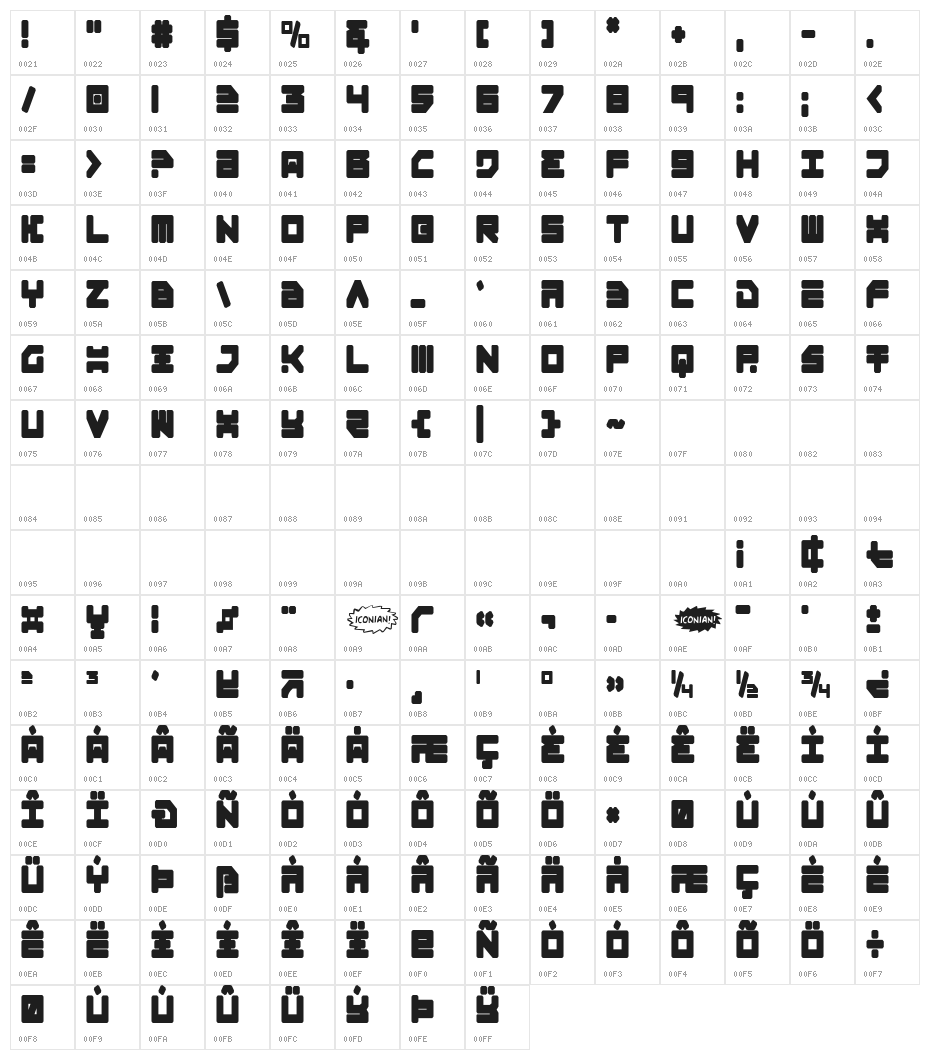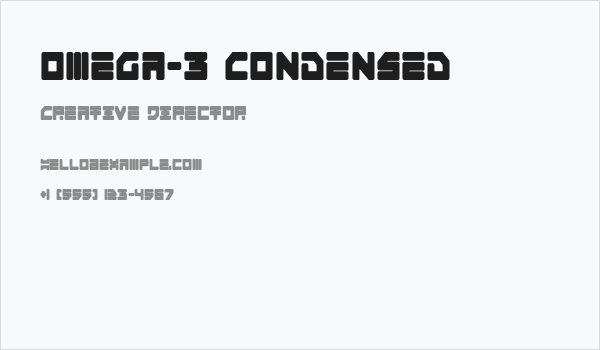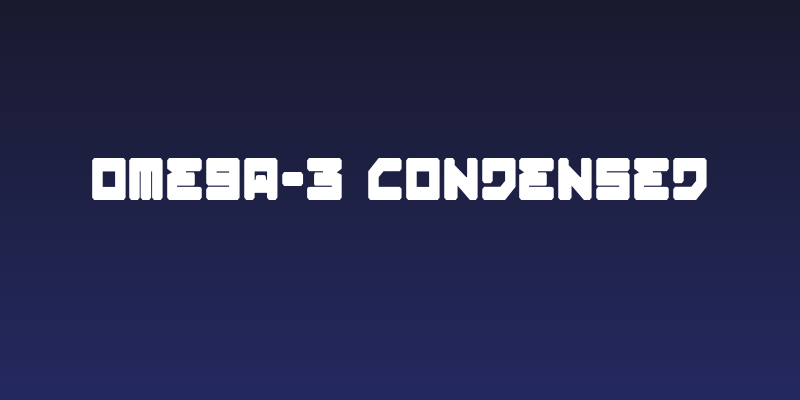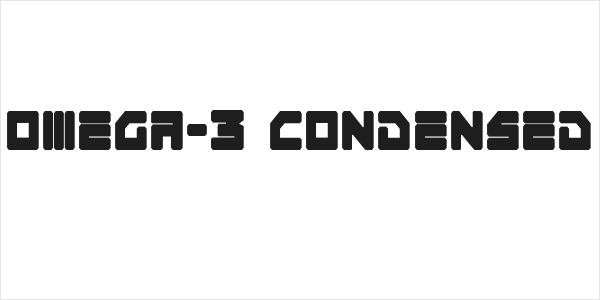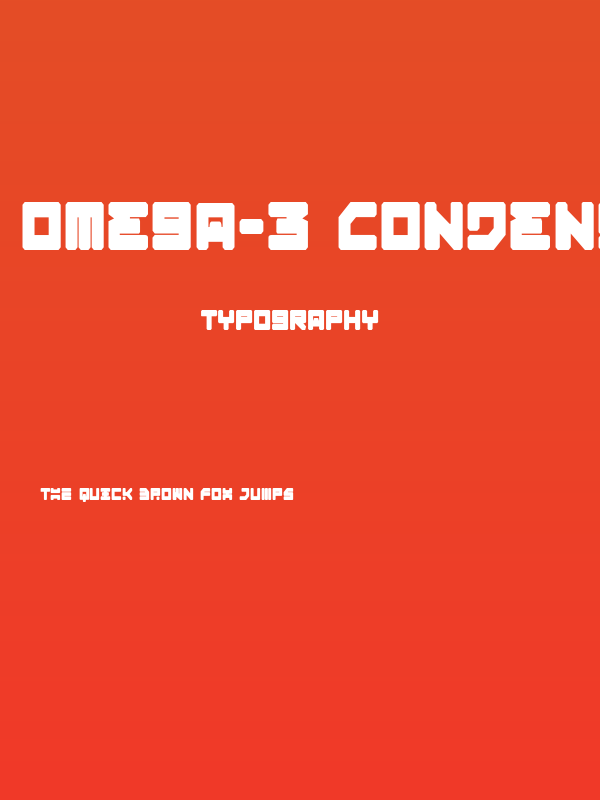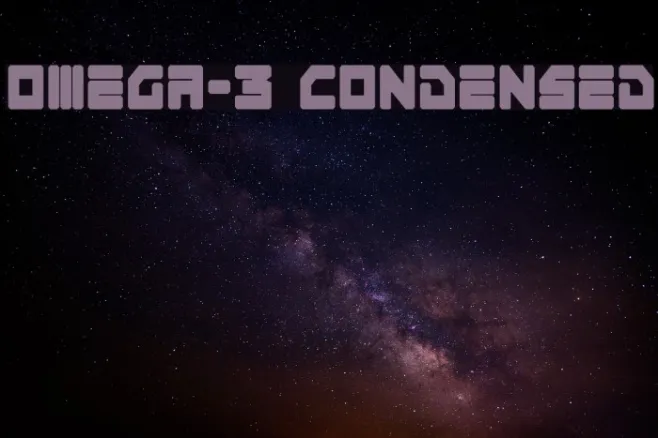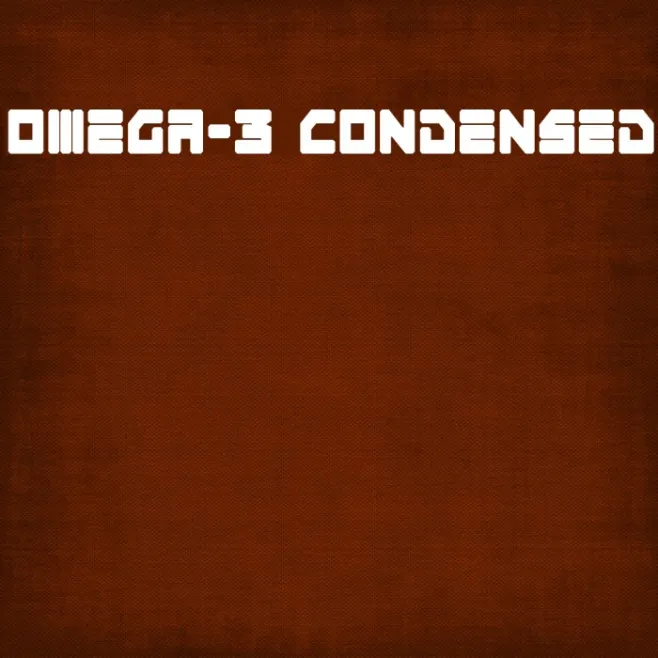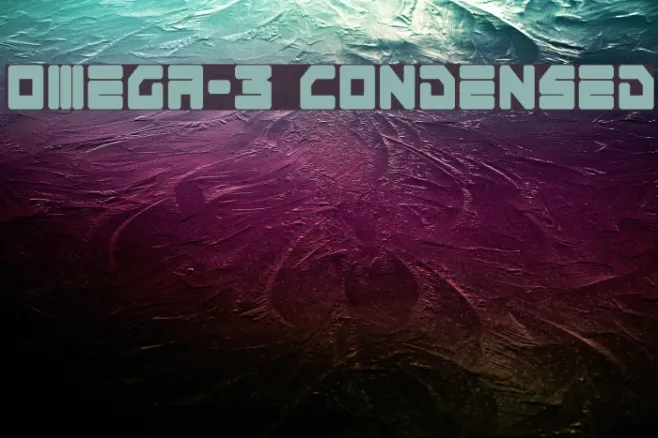
Omega-3 Condensed Font
Omega-3 Condensed Description
This font features a bold and futuristic design with a strong geometric structure. The characters are blocky and condensed, creating a compact and impactful appearance. The style is reminiscent of digital or sci-fi themes, with each letterform exhibiting a uniform thickness and minimal contrast. The uppercase and lowercase letters maintain a consistent height, enhancing the cohesive look. Numbers and special characters follow the same design principles, ensuring a seamless integration across different text elements. The overall aesthetic is modern and dynamic, suitable for projects that require a bold statement.
| Proposed Projects | Ideal for sci-fi themed posters, video game titles, tech branding, and futuristic advertisements. |